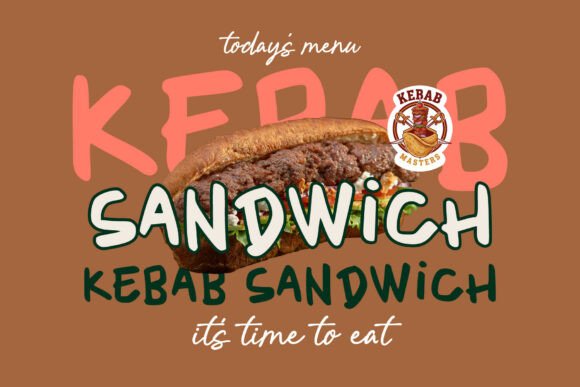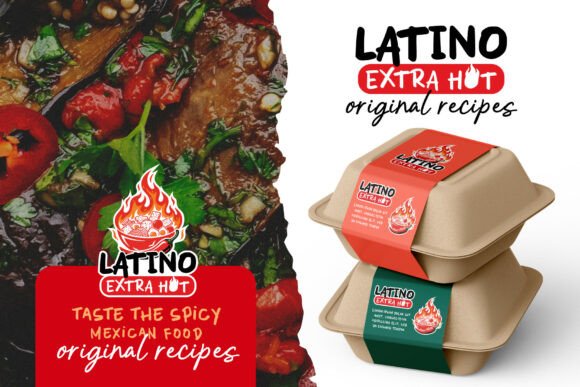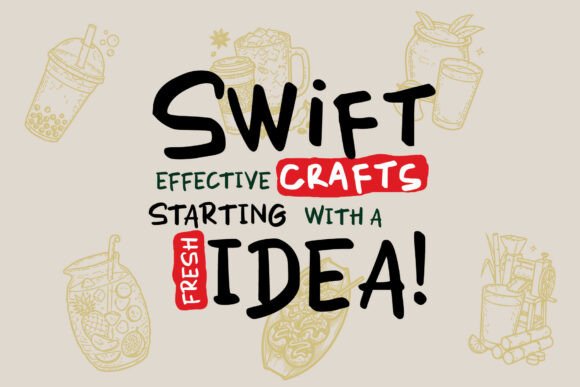
Introduction to Quick Scribble Font Font
Fonts play a crucial role in design, and the Quick Scribble Font font is a typeface that brings both character and versatility to any project. Whether you’re working on a branding project, a website, or a print design, the Quick Scribble Font font offers a unique style that can elevate your work.
Dispensing a healthy serving of character, Quick Scribble is a captivating marker display typeface nourished by the energetic ebullience of lively food scenes.
Its harmonious blend of the kinetic charm from street food vendors, the countryside charisma of hand-drawn café chalkboards, and the casual aura of laid-back restaurant menus, confers an attractive and unique appeal Quick Scribble dishes out handcrafted lettering, radiating warmth and amplifying visual charm, regardless of scale, to whet aesthetic appetites for a gastronomic journey.
The Quick Scribble Font font is more than just a typeface – it’s a design tool that helps you communicate your message with style and clarity. Its unique character set and versatile design make it suitable for a wide range of applications, from elegant invitations to bold headlines.
With its carefully crafted letterforms and balanced proportions, the Quick Scribble Font font ensures readability and visual appeal across all mediums.
What makes Quick Scribble Font font special?
The Quick Scribble Font font stands out with its unique design, exceptional readability, and versatility across various design applications.